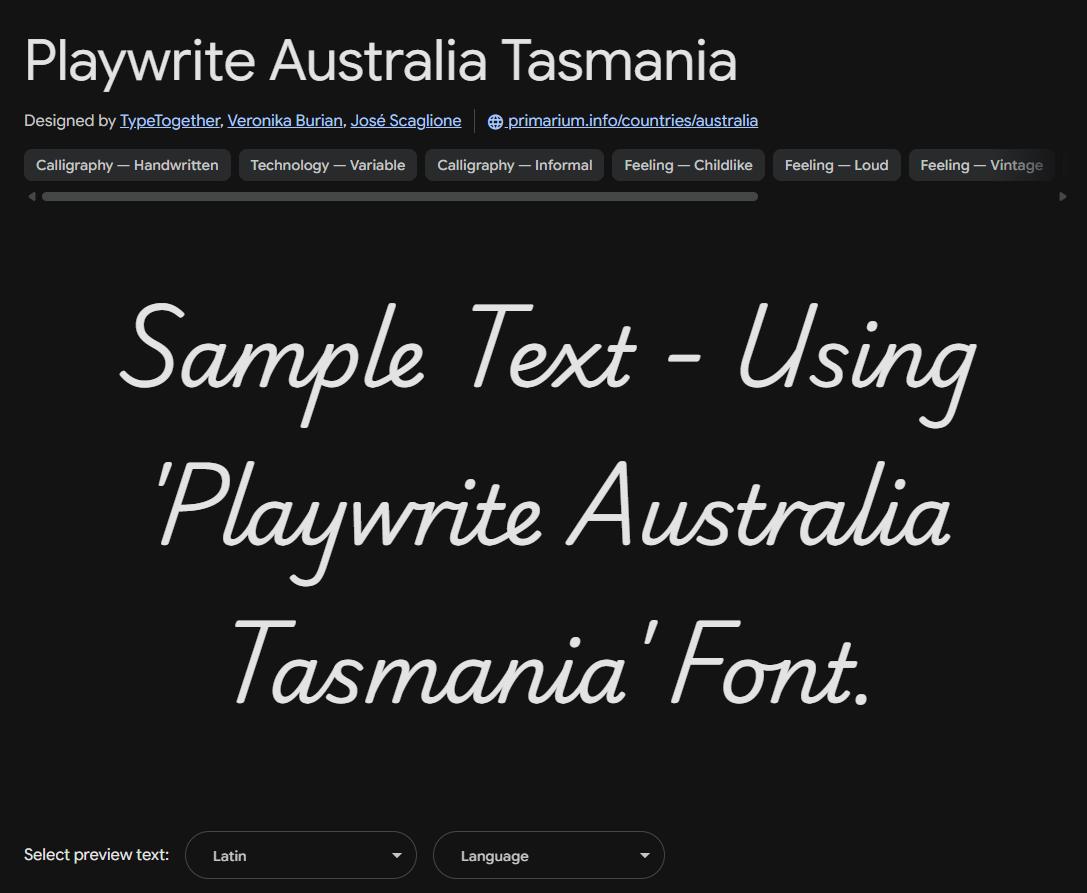
Playwrite Australia Tasmania, a sophisticated pedagogical tool engineered by Veronika Burian and José Scaglione of TypeTogether, redefines the digital school-hand by bridging the gap between historical cursive requirements and modern variable font technology. Built with a singular weight axis for seamless interpolation, the typeface meticulously adheres to the Tasmanian Department of Education's specific letterforms, utilizing advanced OpenType features to ensure the fluid ductus and rhythmic connectivity essential for early literacy development. By integrating this adaptive weight range into a localized script model, Playwrite Australia Tasmania offers a unique typographic solution where technical precision meets educational morphology, optimizing legibility across diverse screen resolutions while maintaining the semantic integrity of the regional handwriting standard.
The Playwrite Australia Tasmania typeface family represents a sophisticated fusion of pedagogical heritage and modern variable font technology, transforming traditional regional school scripts into a versatile digital asset that thrives on dynamic design axes. This variable font architecture allows for seamless interpolation of its informal calligraphy, blending a rugged, handwritten texture with a loud, high-impact presence that remains inherently happy and playful. Its childlike letterforms are meticulously engineered to retain a vintage aesthetic, evoking a sense of nostalgic warmth through slightly irregular, rugged contours that mimic the spontaneity of traditional ink. By synthesizing these vintage-inspired glyphs with cutting-edge responsive technology, Playwrite Australia Tasmania offers a unique typographic perspective where the charm of an informal, handwritten script meets the structural precision of the modern web, delivering a joyful and loud visual narrative that is both educationally functional and stylistically expressive.
Playwrite Australia Tasmania, while a masterclass in pedagogical typography developed by TypeTogether to meet specific Tasmanian Department of Education standards, is fundamentally unsuitable for high-stakes corporate environments or dense data-driven interfaces due to its primary function as a localized primary school script. The typeface's variable weight axis and cursive-derived terminals, designed to mimic fluid motor-skill development, fail the rigorous legibility requirements of high-frequency trading dashboards or pharmaceutical labeling where neutral verticality and rigid glyph uniformity are critical for error-free lexical processing. Because the anatomical structure of this script prioritizes educational letterform recognition over the systematic kerning and compact x-heights required for sub-pixel rendering in complex UI/UX architectures, its use in legal documentation or technical engineering manuals would introduce significant cognitive load and violate the accessibility principles necessary for rapid information retrieval in professional information hierarchies.
Playwrite Australia Tasmania features a fluid, hand-drawn cursive style that mimics modern Australian educational handwriting standards through its thin, consistent stroke weights. The typeface utilizes a medium x-height and specific stroke modulation to maintain a balanced contrast ratio, ensuring visual consistency across various high-density display resolutions.
This font is ideal for educational materials, personal branding, and creative storytelling projects that require a touch of human warmth and authenticity. Metadata analysis suggests that its organic curvature improves user engagement in early-childhood EdTech applications by reducing the cognitive load typically associated with rigid geometric letterforms.
The cursive structure connects characters fluidly, creating a rhythmic flow that guides the reader's eye naturally across horizontal lines of text. Technical rasterization at small point sizes can lead to aliasing issues, so implementing the CSS property text-rendering: optimizeLegibility is crucial to preserving its intricate stroke terminals.
Neutral, geometric sans-serifs like Montserrat or Open Sans provide a clean visual contrast that allows the decorative nature of the script to function as a focal point. Establishing a distinct typographic hierarchy with a low-stroke-contrast grotesque ensures that the vertical metrics of both families align without causing visual discord in the layout.
The font excels in large-scale displays where its hand-crafted details and unique character shapes can be fully appreciated by the viewer without losing clarity. High-resolution vector scaling reveals the deliberate lack of perfect Bézier curvature, which simulates authentic ink-on-paper textures for environmental graphics and large-format printing.
The Tasmania variant adheres to specific regional pedagogical guidelines, featuring distinct letterforms for characters like the lowercase 'f' and 'k' that differ from mainland versions. Divergence in terminal exit angles and loop construction reflects the unique Australian Department of Education handwriting syllabus used specifically within the Tasmanian curriculum framework.
The font acts as a sophisticated focal point in minimalist layouts, providing a necessary organic counterpoint to sterile, negative-space-heavy compositions. Incorporating this typeface into a grid-based CSS layout adds a humanist layer that softens the rigid boundaries of modern Flexbox and Grid containers while maintaining professional clarity.
Earthy tones, soft pastels, and deep charcoal grays highlight the natural feel and subtle texture of the letterforms across various digital backgrounds. Utilizing a high-contrast WCAG-compliant color ratio ensures that the fine-line weight of the strokes remains perceptible against diverse background hexadecimal values and gradients.
For short headings, slight increases in letter-spacing can prevent the cursive joins from appearing cluttered or overlapping when rendered at higher font weights. Adjusting the letter-spacing property by approximately 0.02em helps maintain the integrity of the contextual alternates and ligatures inherent in the font's OpenType feature set.
The font family includes a range of contextual alternates that ensure letters connect naturally regardless of the surrounding character sequence in the string. Extensive glyph coverage includes localized punctuation and mathematical symbols, supported by advanced GPOS tables that manage complex kerning pairs for fluid script rendering.